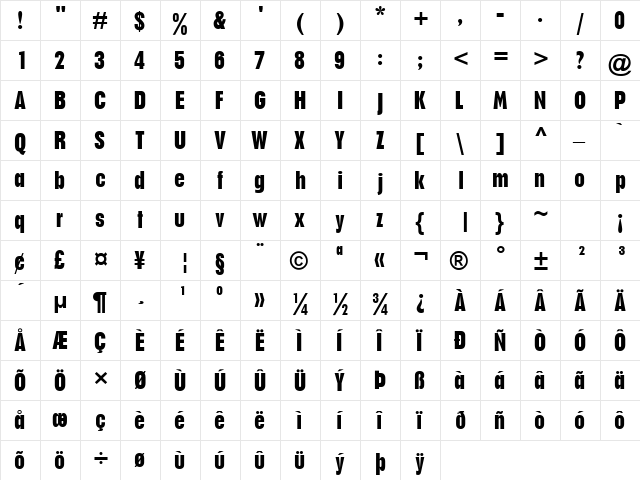
Placard MT Bold Condensed Regular Font Preview
Design Context for Placard MT Bold Condensed Typeface
Placard MT Bold Condensed takes a measured approach to typography — its balanced proportions and neutral character make it a reliable workhorse for both digital and print work. The heavy weight commands attention and anchors typographic hierarchies. Its narrow stance lets it pack a punch even in space-constrained designs.
Pro Tip: Use Placard MT Bold Condensed in both headline and body roles to test its range before committing to a single application.